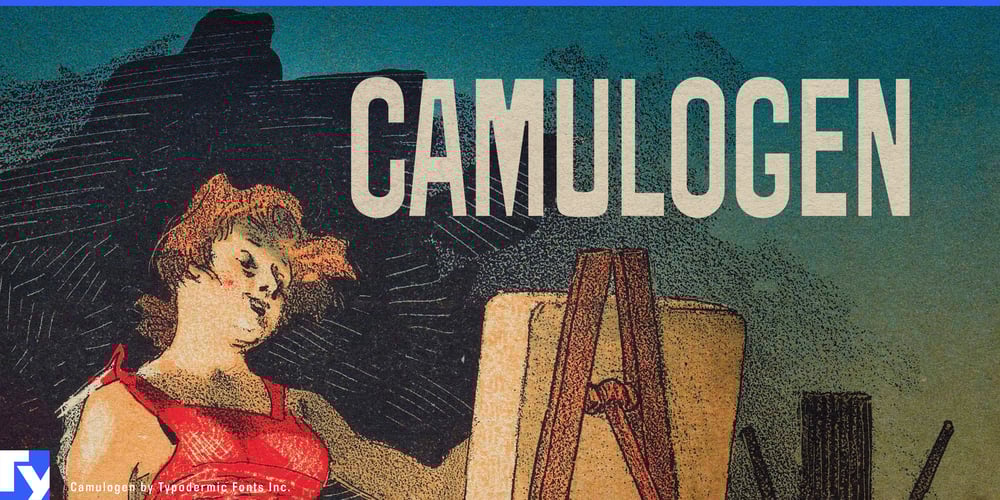
Camulogen Font Family was designed by Ray Larabie and published by Typodermic. Camulogen contains 1 styles and family package options. Step into the glittering world of the Belle Époque with Camulogen, a typeface that captures the essence of Parisian extravagance at the turn of the 20th century. Inspired by the bold poster designs that once adorned the walls of Montmartre, this font family exudes a captivating blend of sophistication and audacity.Camulogen’s full-bodied letterforms command attention, their rough edges evoking the texture of vintage lithographs while maintaining a distinctly modern edge. Each character stands as a miniature work of art, designed to turn heads and stir imaginations whether gracing magazine covers, luxury packaging, or chic branding materials. But Camulogen isn’t just about visual flair—it’s a linguistic chameleon, fluent in a vast array of Latin-based European writing systems. From the cafés of Paris to the piazzas of Rome, this typeface speaks the language of elegance across cultures, making it an invaluable tool for designers with global aspirations.Choose Camulogen when you need typography that doesn’t whisper, but sings with the vibrant spirit of a cabaret chanteuse. It’s more than a font; it’s an invitation to an era of unbridled creativity and glamour, ready to infuse your designs with a touch of timeless Parisian chic.